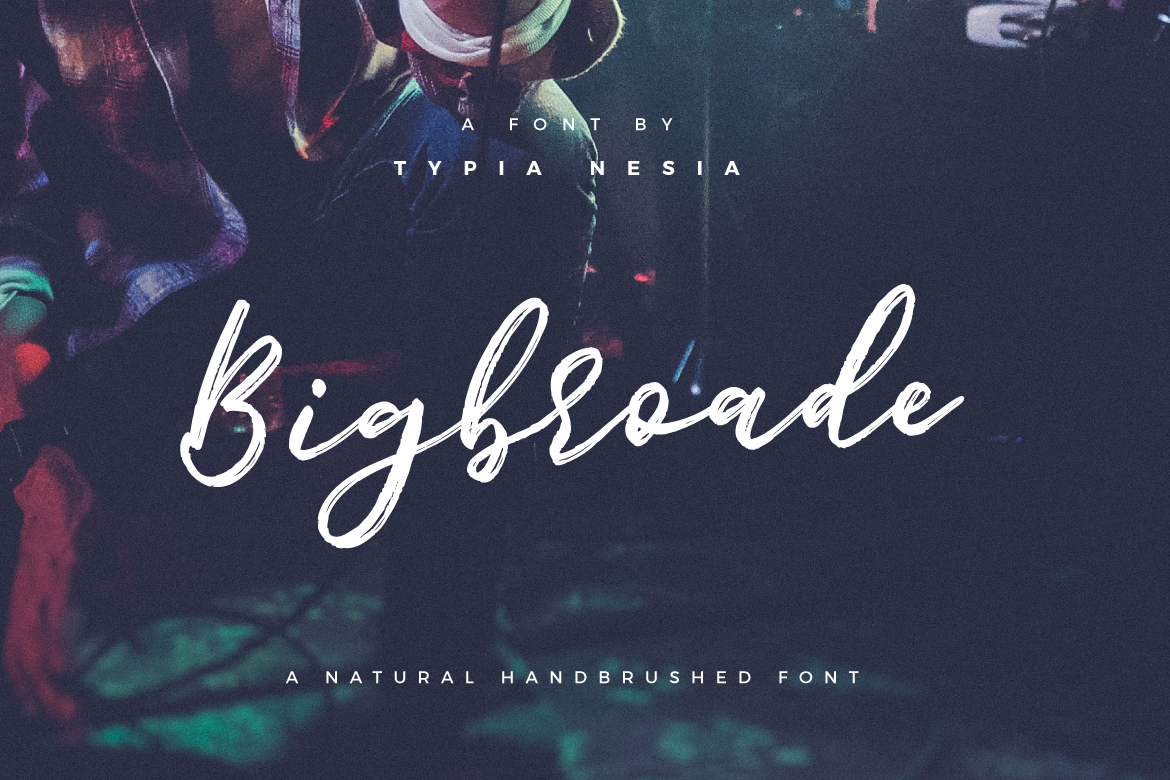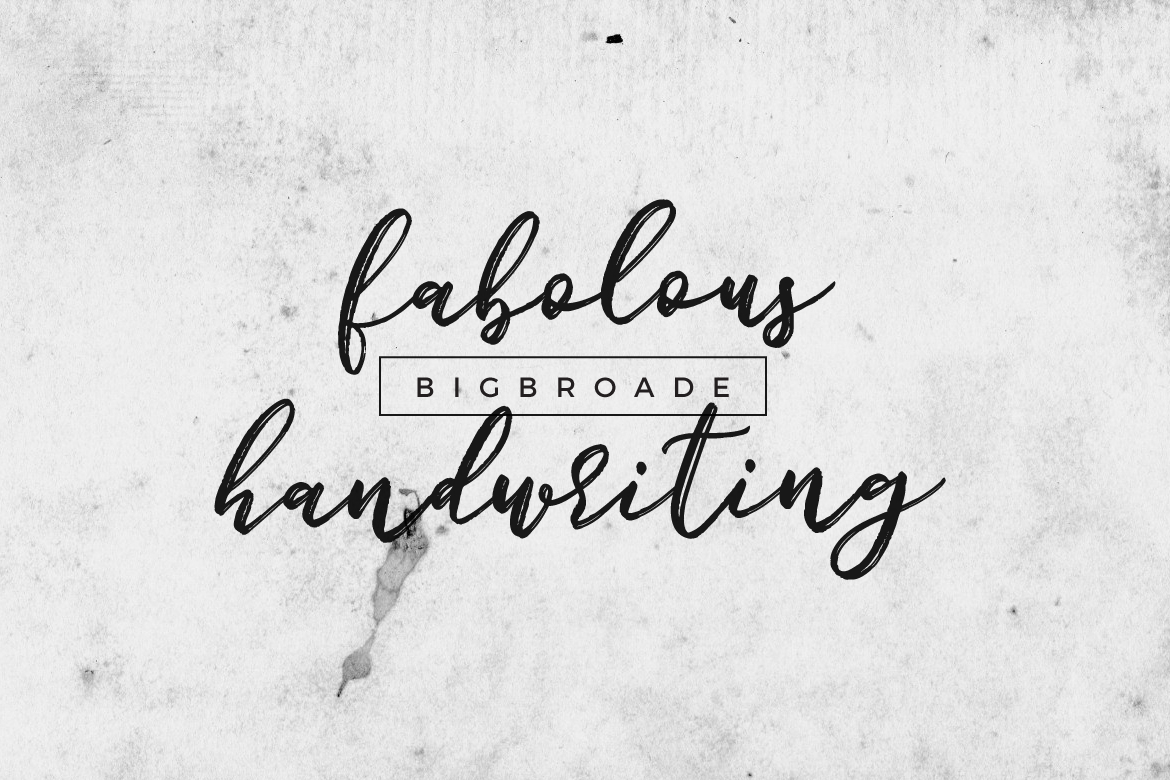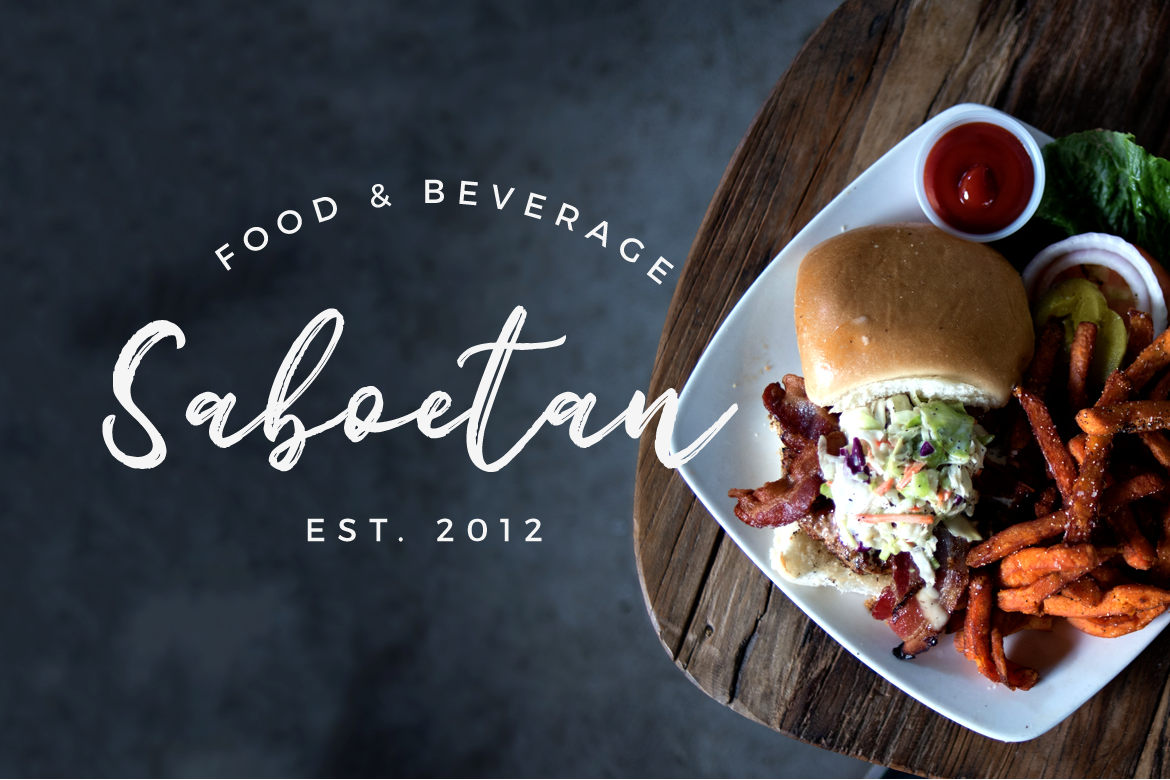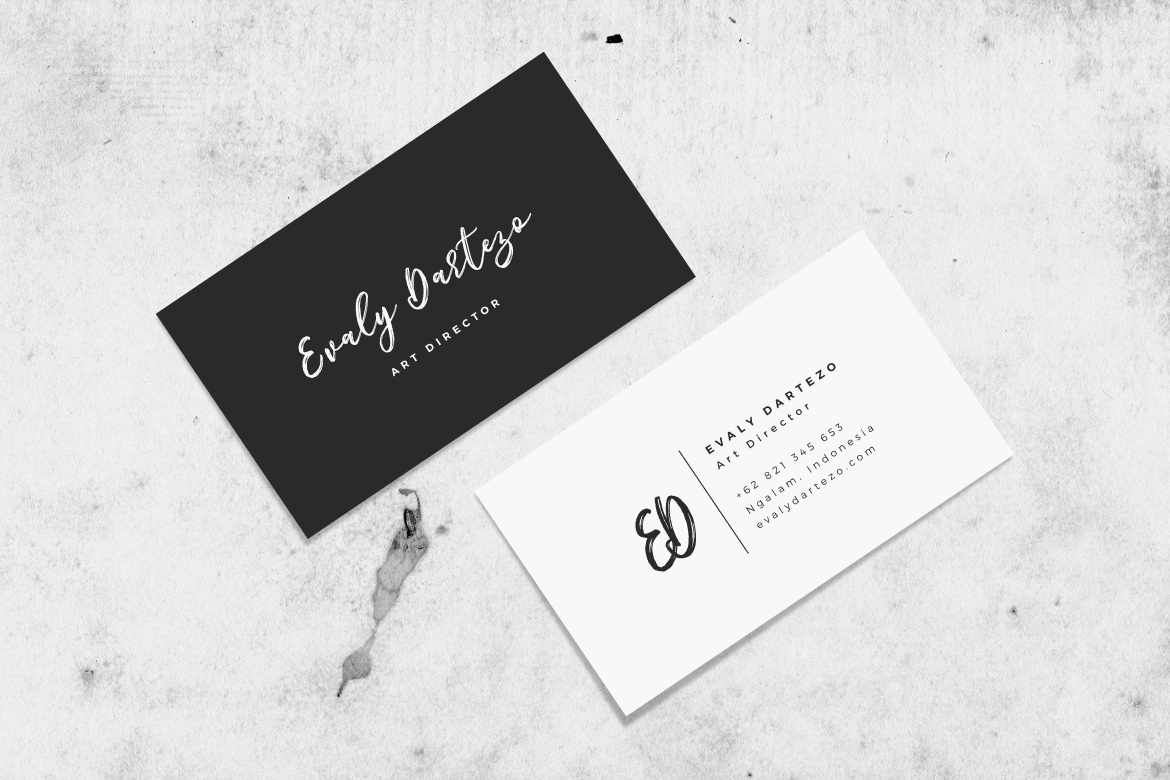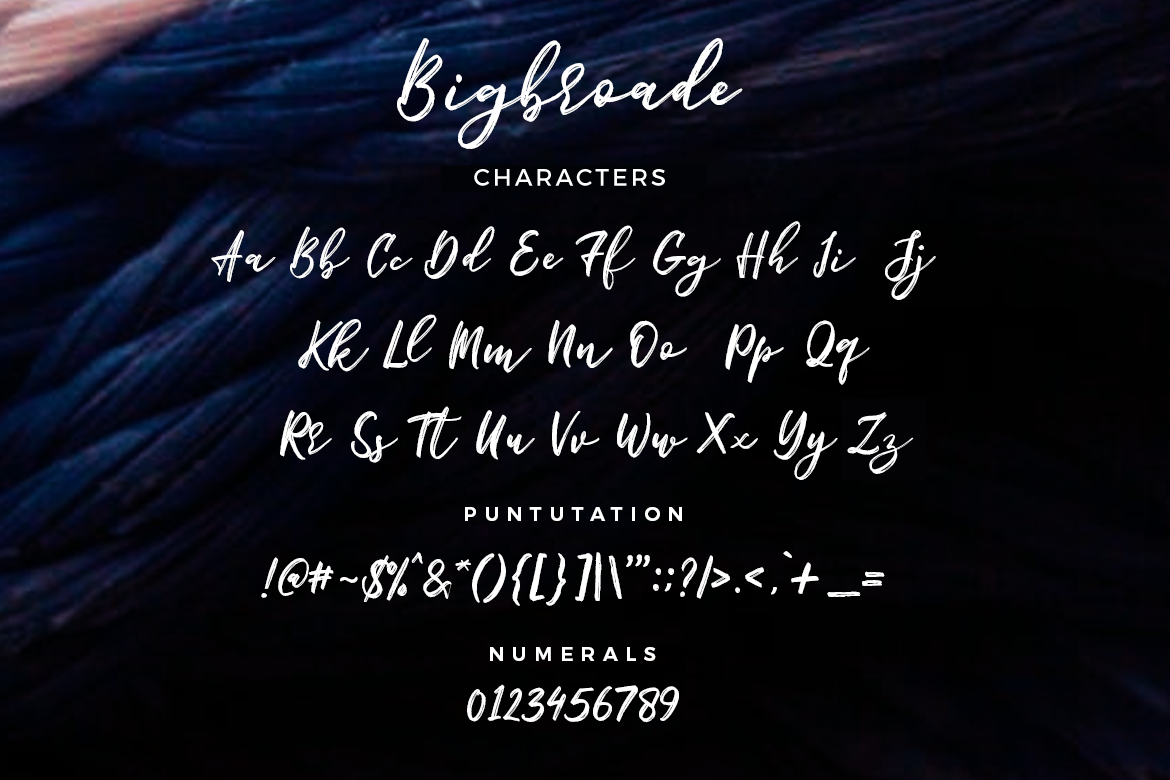
Bigbroade Font
About Bigbroade Font
Bigbroade is a fabulous hand brushed font, ideal for a wide range of designs that need an approachable and laissez-faire script. This font looks gorgeous in a large range of project types and is a standout logotype option.